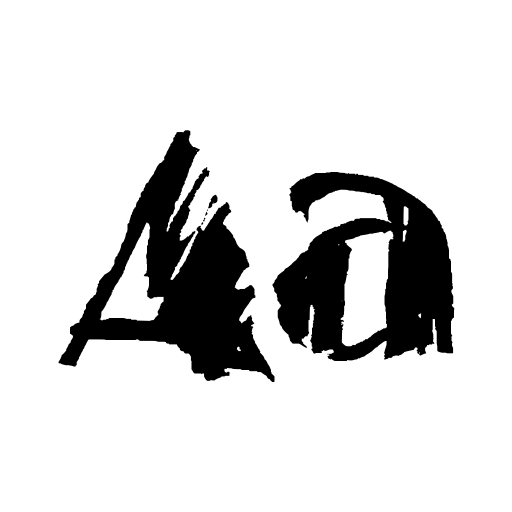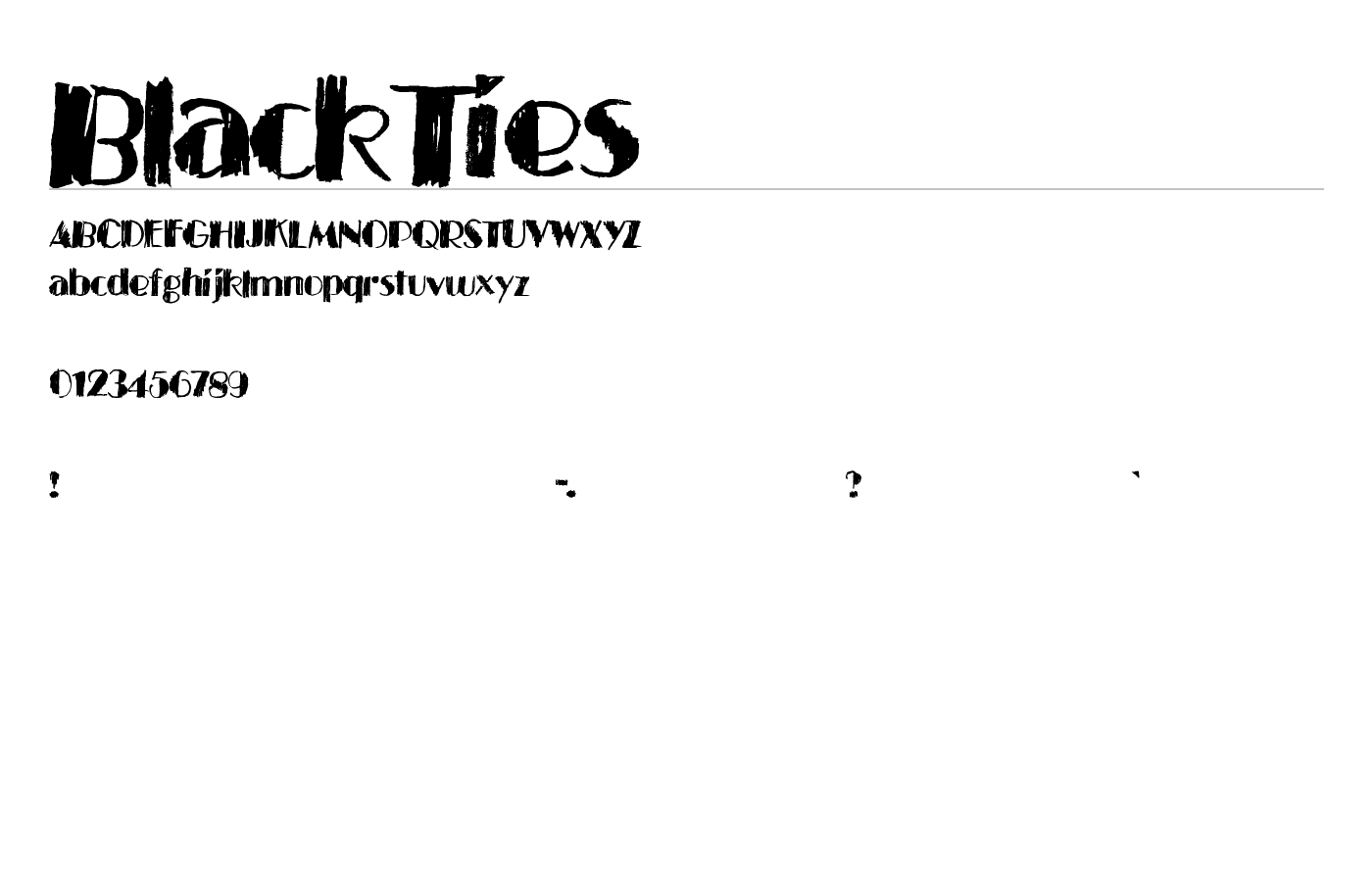
BlackTies is a bold, distressed serif font with a rough, hand-painted texture that gives it an edgy, artistic feel. Its irregular stroke widths and weathered look make it perfect for creative projects, posters, and branding that aims to convey a rebellious or gritty personality with a strong visual impact. This font works best in display uses where its unique character can stand out.
BlackTies Font